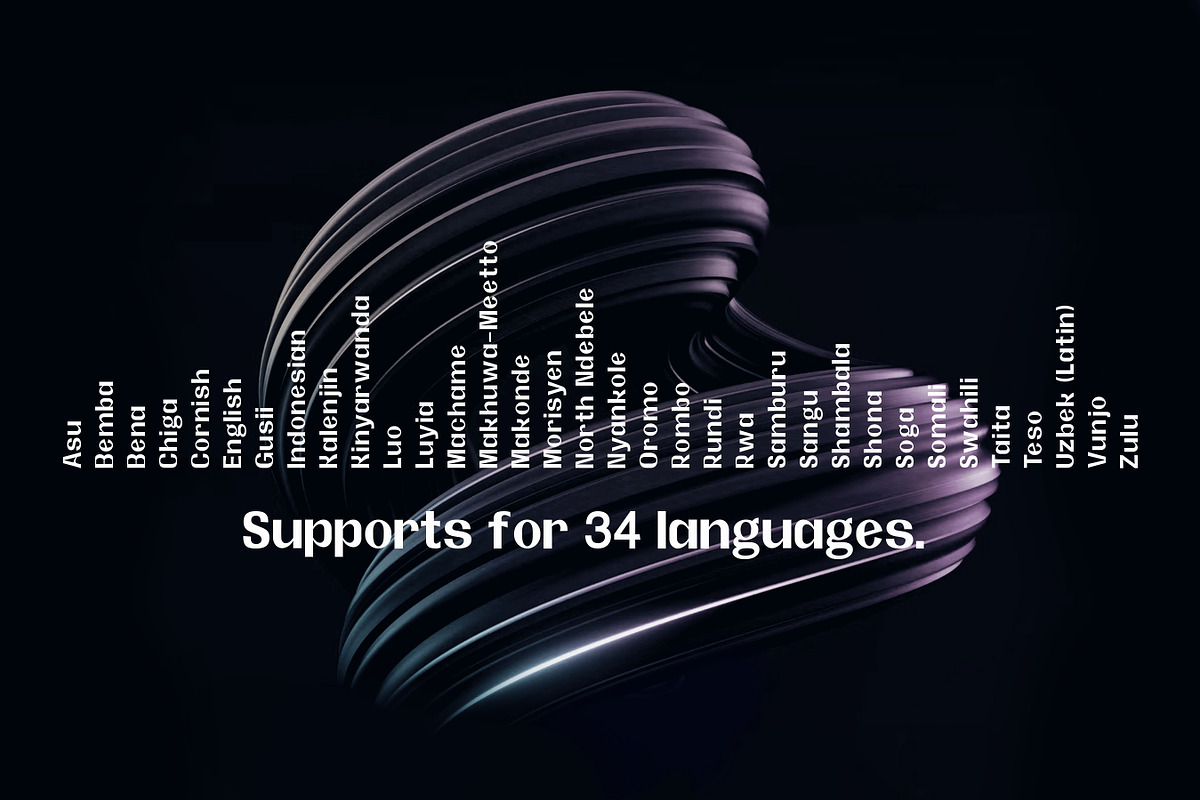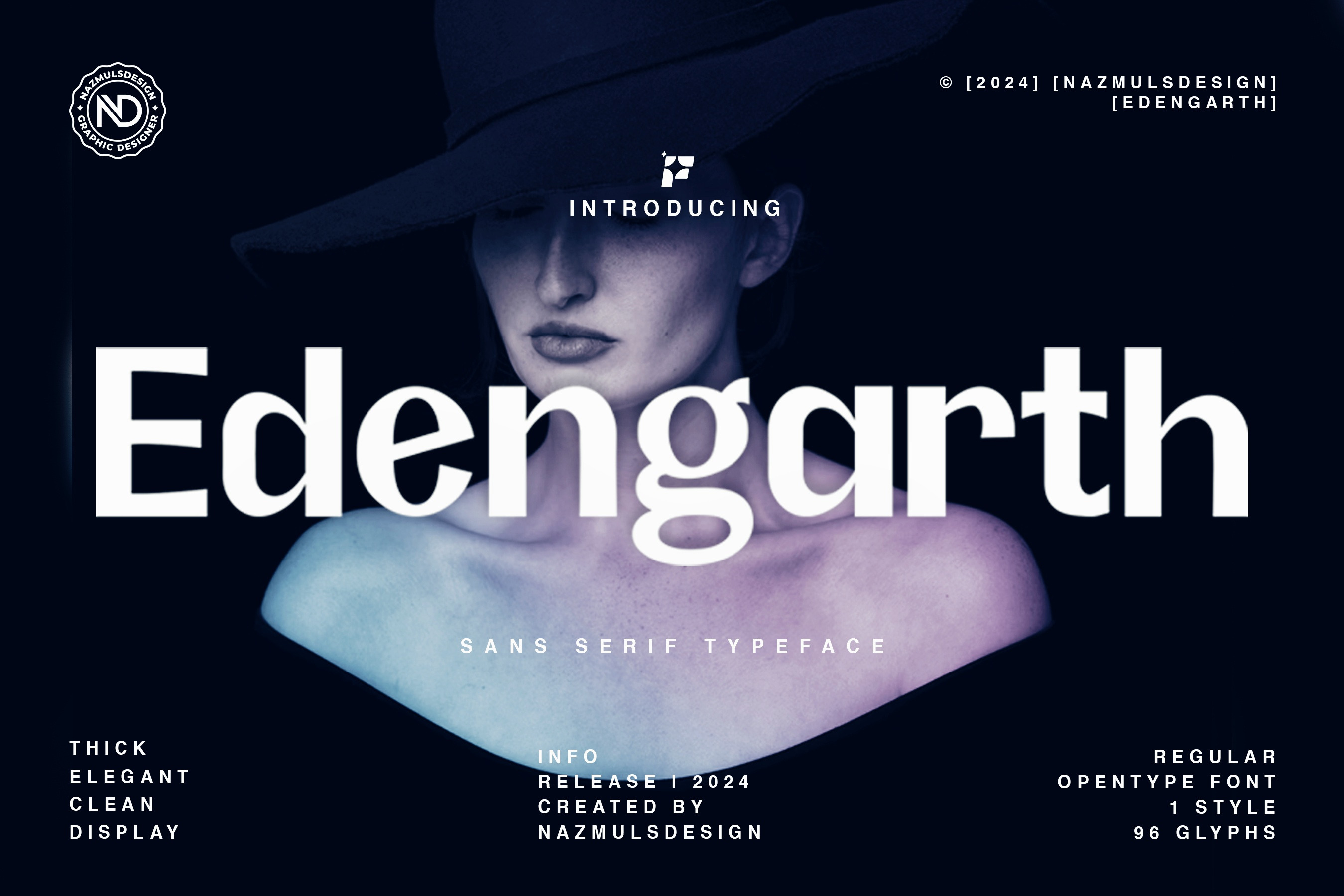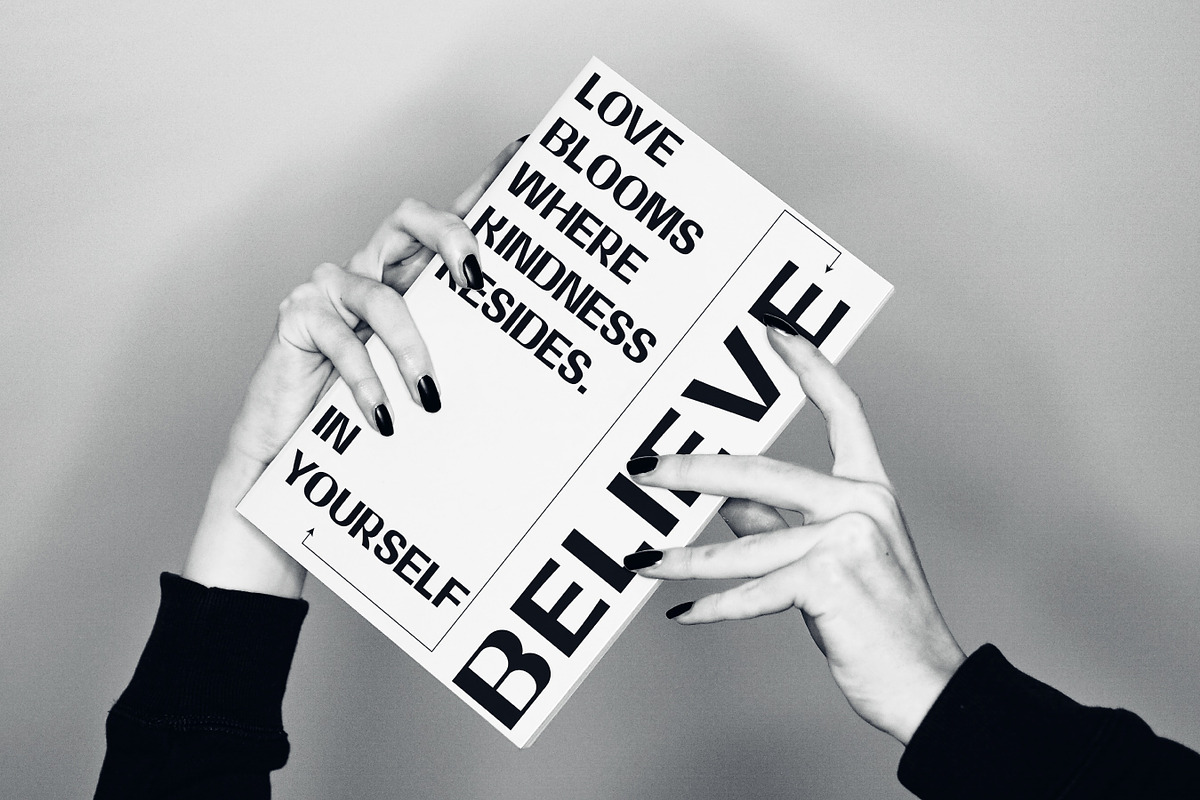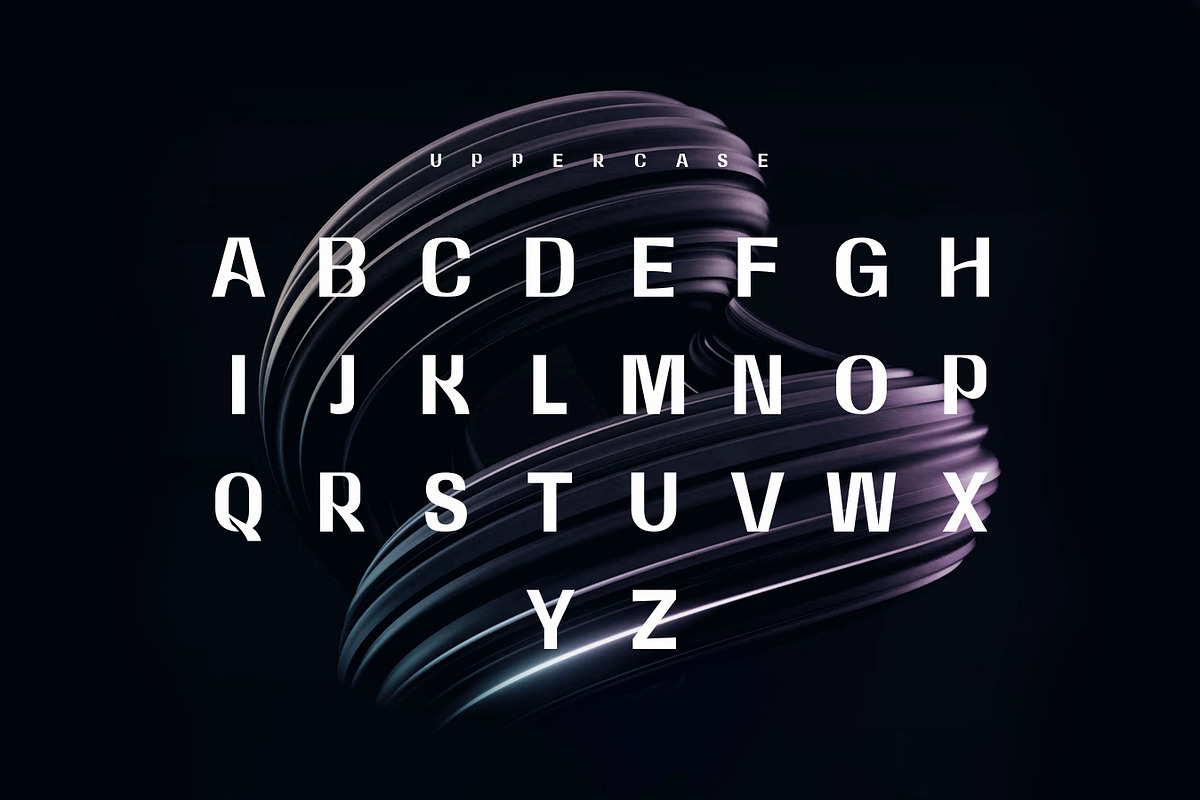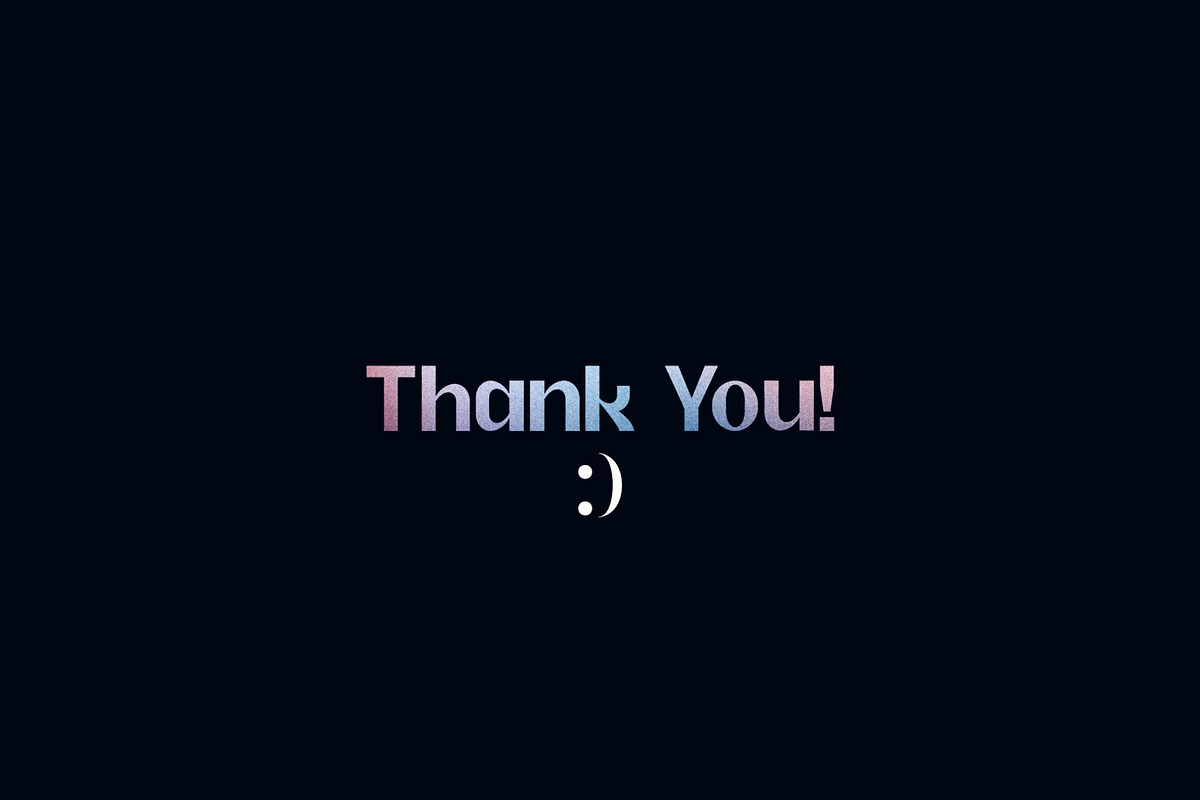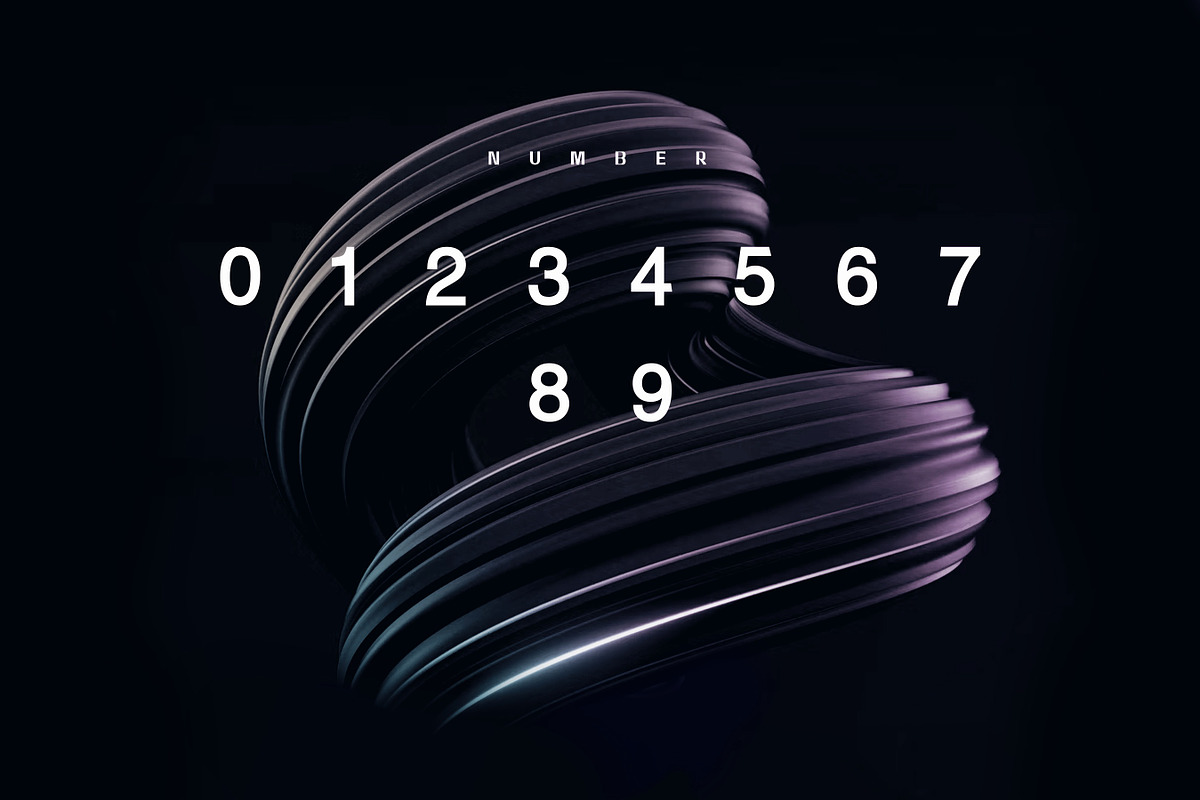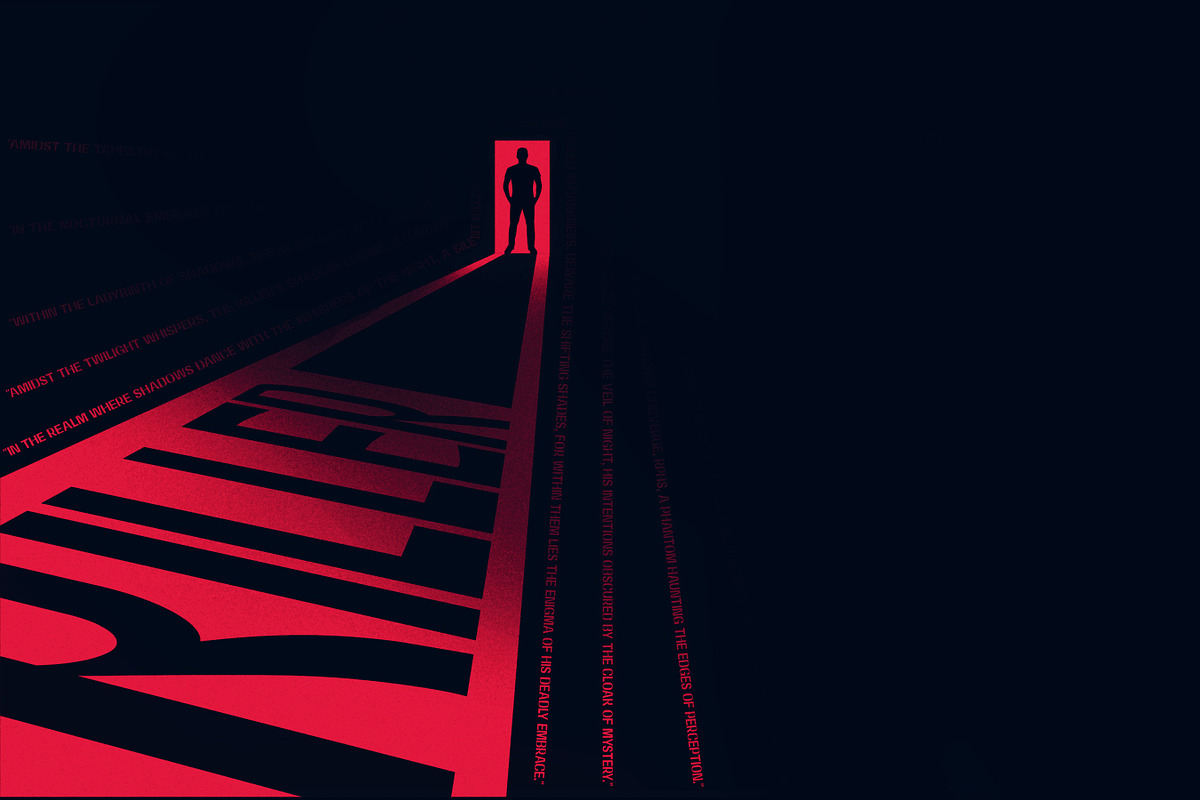
Edengarth | Sans Serif Typeface
Edengarth is a modern and versatile typeface that seamlessly blends contemporary aesthetics with timeless elegance. This font is designed to capture attention and leave a lasting impression across various design projects. With its balanced proportions and meticulous detailing, Edengarth brings a touch of sophistication to every letterform.